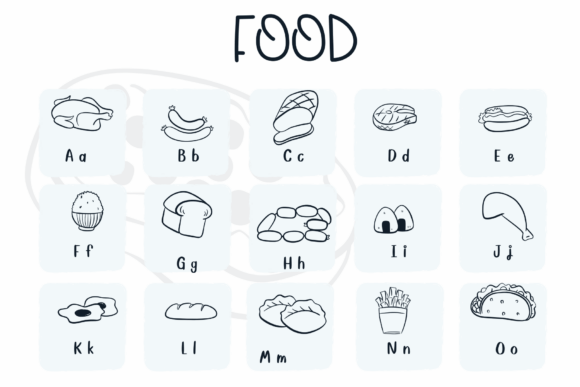
Food Font: Add a Dash of Delicious Fun to Your Designs
Are you looking for a way to make your designs more appetizing and engaging? Look no further than the Food Dingbats Font! This delightful font set is packed with a variety of hand-drawn food icons that are sure to add a dash of delicious fun to your projects. From sushi and croissants to chicken wings and cupcakes, this font has everything you need to bring flavor and creativity to your designs.
What is the Food Dingbats Font?
The Food Dingbats Font is a unique and creative font set that features a wide range of hand-drawn food icons. These icons are perfect for use in a variety of design projects, including menus, recipe cards, food blogs, kitchen decor, and more. The font is designed to be easy to use and can be installed on your computer or used online.
One of the best things about the Food Dingbats Font is its versatility. The font includes a wide range of food icons, from sweet treats like cupcakes and ice cream cones to savory items like pizza and sushi. This makes it easy to find the perfect icon for your design project, no matter what type of food or cuisine you are featuring.
Features of the Food Dingbats Font
The Food Dingbats Font has a number of features that make it a great choice for designers. Some of the key features include:
- Hand-drawn icons: Each icon in the Food Dingbats Font is carefully hand-drawn to ensure that it is unique and visually appealing.
- Variety of food icons: The font includes a wide range of food icons, from breakfast items like eggs and pancakes to dinner items like steak and sushi.
- Scalable: The icons in the Food Dingbats Font are scalable, making it easy to use them in a variety of design projects.
Uses for the Food Dingbats Font
The Food Dingbats Font is a versatile font that can be used in a wide range of design projects. Some of the most popular uses for the font include:
- Menus: The font is perfect for use in menus, whether you are designing a menu for a restaurant, cafe, or food truck.
- Recipe cards: The font can be used to create visually appealing recipe cards that feature illustrations of the ingredients and dishes.
- Food blogs: The font is a great choice for food bloggers who want to add a touch of personality to their blog posts.
- Kitchen decor: The font can be used to create decorative items like wall art, signs, and labels for kitchen utensils and appliances.
Benefits of Using the Food Dingbats Font
There are many benefits to using the Food Dingbats Font in your design projects. Some of the key benefits include:
- Unique and visually appealing designs: The font allows you to create unique and visually appealing designs that will stand out from the crowd.
- Time-saving: The font saves you time by providing a wide range of pre-designed icons that you can use in your projects.
Tips for Getting the Most Out of the Food Dingbats Font
Here are some tips for getting the most out of the Food Dingbats Font:
- Experiment with different icons: Don’t be afraid to experiment with different icons to find the one that works best for your project.
- Use the icons in combination with other design elements: The icons in the Food Dingbats Font can be used in combination with other design elements like text, images, and shapes to create visually appealing designs.
- Customize the icons: Don’t be afraid to customize the icons to fit your needs.
- Use the font in different design projects: The Food Dingbats Font can be used in a wide range of design projects, so don’t be afraid to experiment with different projects.
The Food Dingbats Font is a unique and creative font set that is perfect for designers who want to add a touch of personality to their projects. With its wide range of hand-drawn food icons, ease of use, and versatility, this font is sure to become a staple in your design toolkit. Whether you are designing a menu, recipe card, food blog, or kitchen decor, the Food Dingbats Font is a great choice. So why wait? Download the Food Dingbats Font today and start adding a dash of delicious fun to your designs!